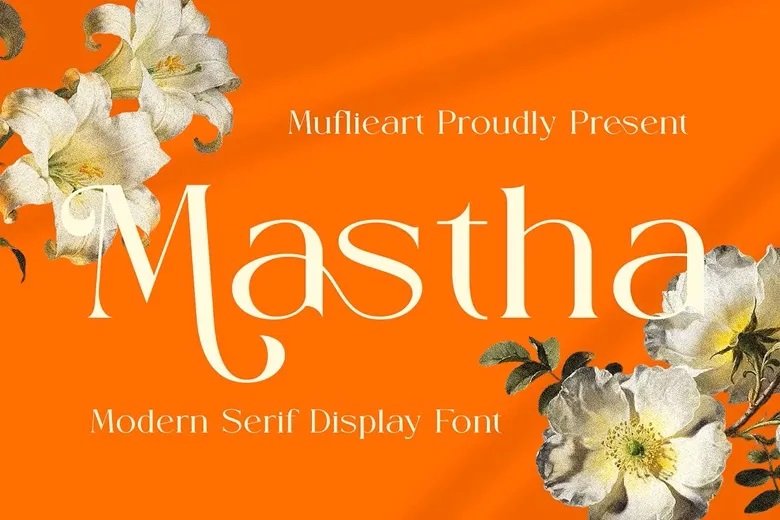
Mastha Font
Having a modern and minimalist appearance, Mastha Font introduces a chic, elegant, and clean aesthetic to your projects like websites, contemporary logos, brand identities, social media quotes, wedding stationery, magazines, and others!
Mastha also has distinctive and elegant capital letters A to Z and also has unique alternates and ligatures that give Mastha a beautiful font that can be tailored to suit your desired project and work.
Mastha will fit in: logos, brands, wedding invitations, business cards, greeting cards, posters, magazines, social media, agenda prints, and websites.
Mastha Serif Font